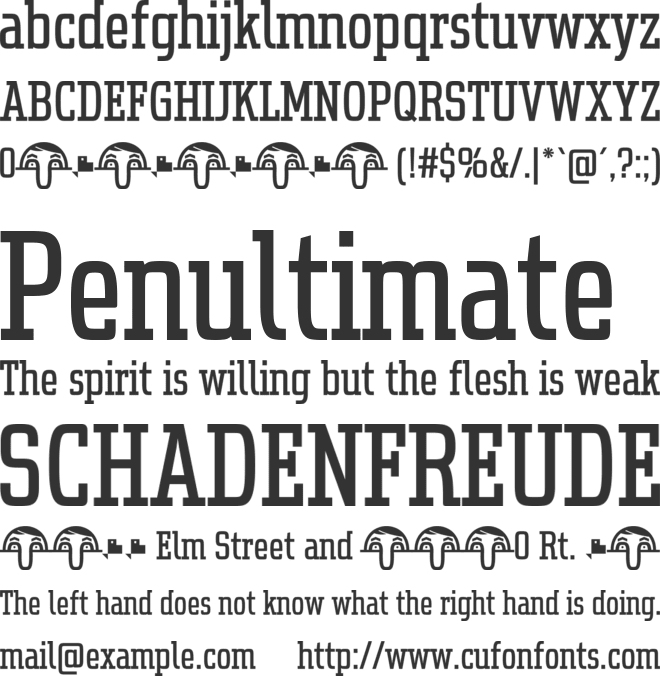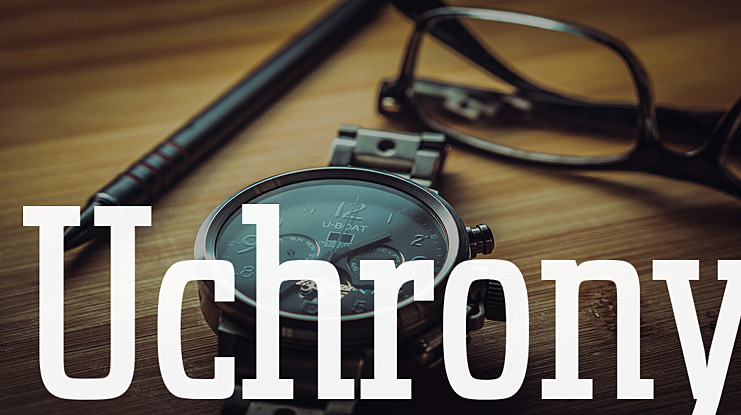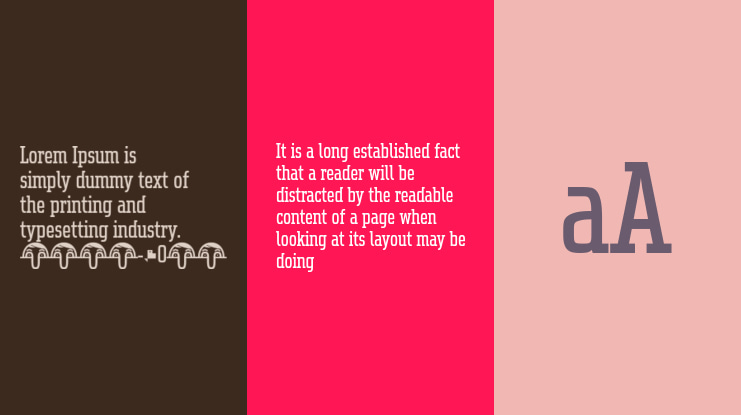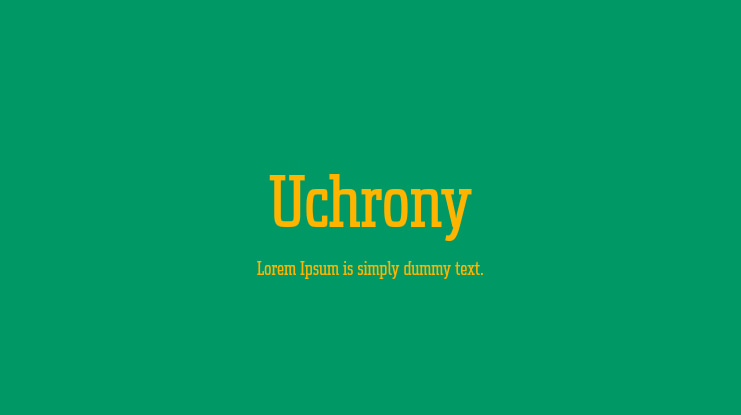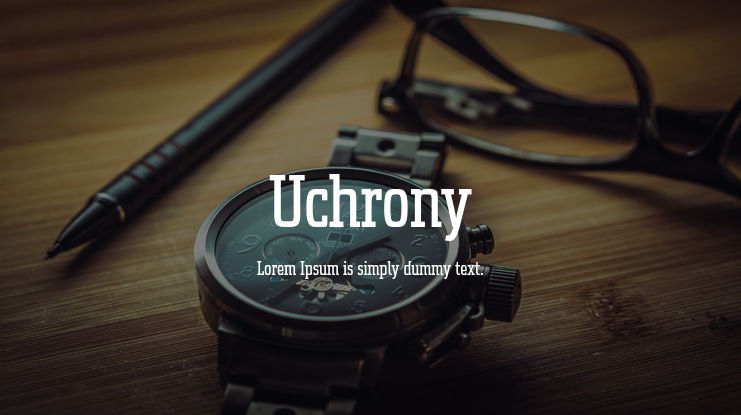
Uchrony Font Family
- Uchrony is a condensed proportion slab serif typeface. The font family is made up of 3 styles, Roman, Small Caps & Italics, with 6 weights each (Extra Light, Light, Regular, Medium, Bold and Extra Bold).
- From the drawing of the lowercase letter "o", I have achieved the basic proportions and curves, which have allowed me to draw the rest of the typography in an exercise of minimalist construction, with this technique I provide morphological coherence and maximum legibility in paragraph texts and titles, also thanks to the careful definition of the width of each character, in relation to others, then, the configuration of the metrics and the exhaustive definition of the Kerning, until achieving a multipurpose, original and fully functional typographic family. All versions include alternate letters, various number sets, and advanced OpenType features.